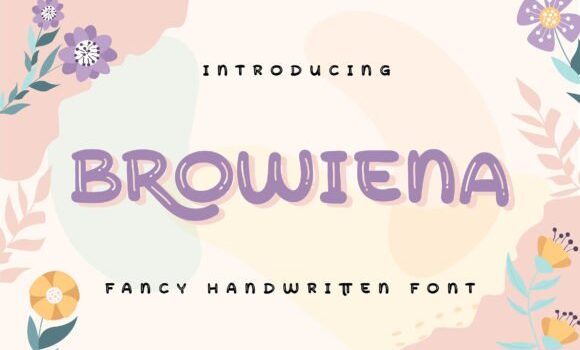
browiena
Browiena Font – Free Download Introduction to Browiena Font Browiena is a cute, fancy and unique display font. 📸 Preview Gallery 5 images 📌 Product Name Browiena Font 👤 Author Vunira 📂 Category Explore ⬇️ Download Browiena Font FREE Free